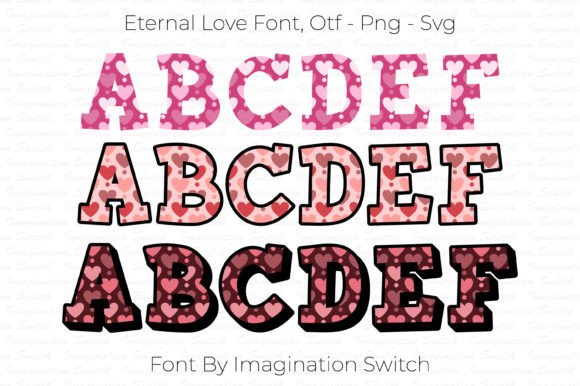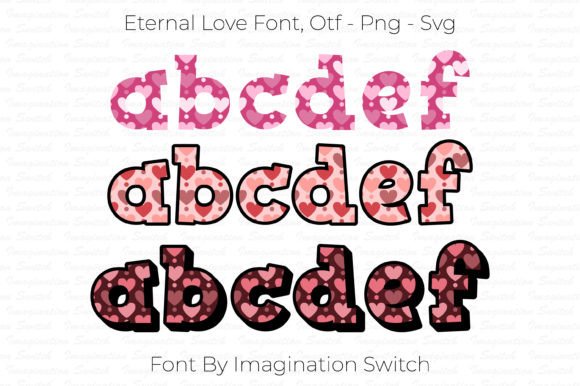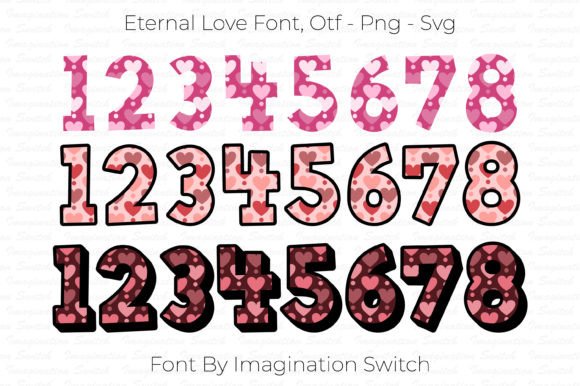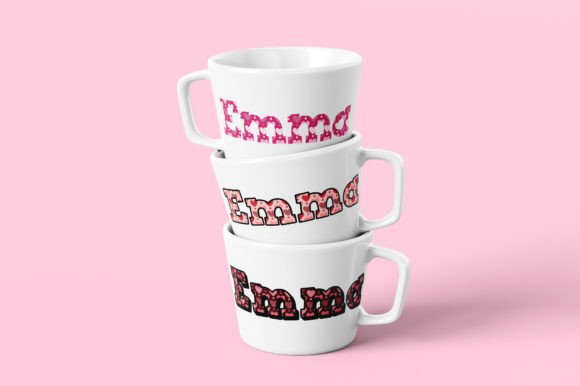
Eternal Love Font: Elevate Your Designs with a Captivating Typographic Creation
In the world of typography, few fonts manage to capture the essence of creativity and uniqueness as effectively as the Eternal Love Font. This captivating font is a game-changer for designers and crafters looking to infuse their projects with a mesmerizing visual appeal. With its intriguing color scheme and comprehensive character set, Eternal Love Font is poised to revolutionize the way you approach design.
A Comprehensive Character Set for Endless Possibilities
Eternal Love Font boasts a complete set of characters, including uppercase, lowercase letters, and numbers, meticulously designed to provide unparalleled flexibility across various types of projects. Whether you’re working on print designs, web designs, promotional materials, or more, this font has got you covered. Its versatility makes it an indispensable asset for designers and crafters who want to push the boundaries of creativity.
Intriguing Colors for a Mesmerizing Visual Touch
The standout feature of Eternal Love Font is its carefully chosen color scheme. Each character has been thoughtfully designed with a unique color palette that adds a mesmerizing visual touch to your designs. This distinctive approach makes each word and number stand out, ensuring that your message is conveyed with clarity and style. The result is a visually stunning presentation that captivates audiences and leaves a lasting impression.
Eternal Love Font is suitable for a diverse array of purposes, including:
• Print designs: breathing new life into brochures, posters, and business cards
• Web designs: elevating the visual appeal of websites and digital platforms
• Promotional materials: making marketing campaigns more engaging and memorable
• Crafting projects: adding a professional touch to DIY endeavors
Excellent Legibility and Visually Appealing Presentation
One of the key strengths of Eternal Love Font is its excellent legibility, ensuring that your message is conveyed with clarity and precision. The font’s visually appealing presentation makes it an ideal choice for designers and crafters who want to enhance the visualization of their message. Whether you’re working on a large-scale project or a small DIY endeavor, Eternal Love Font is the perfect tool to help you achieve your creative goals.
Express Your Creativity with Eternal Love Font
With Eternal Love Font, you can express your creativity in every project you undertake. This font empowers you to craft unforgettable designs with a unique color touch, setting your work apart from the ordinary. Whether you’re a seasoned designer or a crafty DIY enthusiast, Eternal Love Font provides the perfect platform to showcase your skills and bring your vision to life.
Eternal Love Font is a game-changing typographic creation that offers designers and crafters a world of creative possibilities. With its captivating color scheme, comprehensive character set, and excellent legibility, this font is poised to revolutionize the way you approach design. Whether you’re working on print designs, web designs, promotional materials, or crafting projects, Eternal Love Font is the perfect tool to help you achieve your creative goals. So why wait? Unlock the full potential of Eternal Love Font and elevate your designs to new heights of creativity and sophistication.